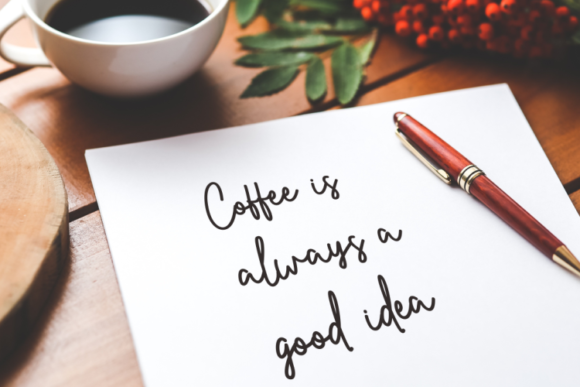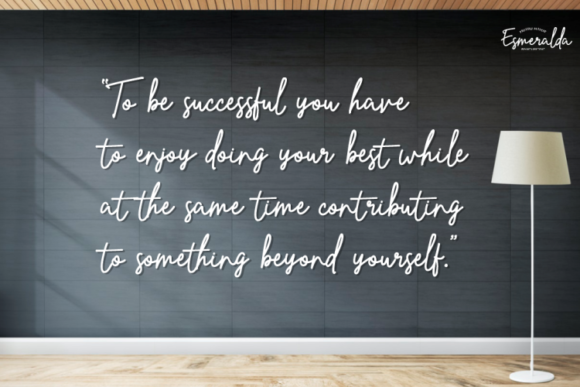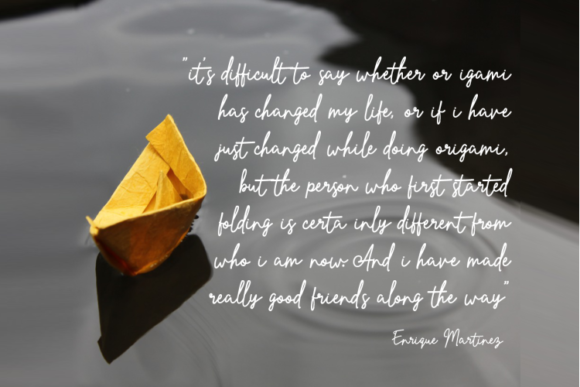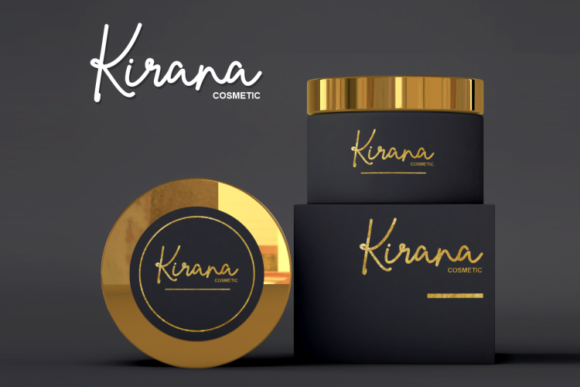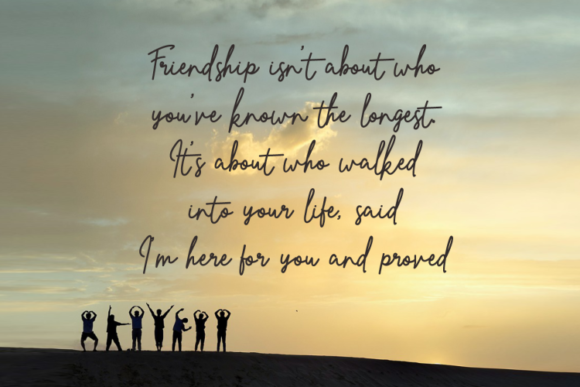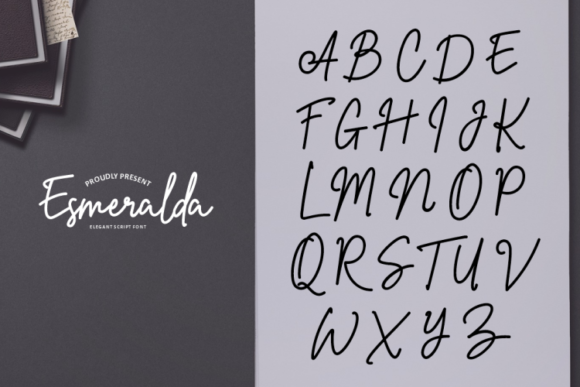
Introducing Esmeralda Font: Elevate Your Designs with Elegance and Sophistication
In the world of typography, few fonts manage to capture the essence of elegance and sophistication as beautifully as Esmeralda. This stunning script font is a masterpiece of modern design, boasting a unique blend of classic charm and contemporary flair. Whether you’re a designer, crafter, or simply someone who appreciates the art of beautiful writing, Esmeralda is sure to captivate your senses and inspire your creativity.
The Beauty of Esmeralda
Esmeralda is a stylish and incredibly elegant script font that exudes refinement and poise. Its intricate lettering and flowing lines evoke a sense of luxury and sophistication, making it the perfect choice for a wide range of design applications. From wedding invitations and thank you cards to quotes, greeting cards, logos, and business cards, Esmeralda adds a touch of handmade charm to any project.
One of the most popular uses for Esmeralda is in wedding and event design. Its romantic, cursive script is tailor-made for wedding invitations, save-the-date cards, and other stationery. The font’s elegant lines and delicate flourishes create a sense of whimsy and wonder, setting the tone for a truly unforgettable celebration. Whether you’re a bride, groom, or event planner, Esmeralda is the perfect choice for creating beautiful, bespoke stationery that reflects your personal style.
Adding a Personal Touch to Your Designs
Esmeralda’s handwritten charm makes it an excellent choice for designers and crafters looking to add a personal touch to their work. Whether you’re creating custom illustrations, hand-lettered quotes, or bespoke branding, Esmeralda’s unique character and flair are sure to shine through. The font’s versatility also makes it suitable for a wide range of design applications, from digital projects to print materials.
Key Features of Esmeralda Font
- Elegant script font: Esmeralda boasts a beautiful, cursive script that’s perfect for adding a touch of sophistication to your designs.
- Handwritten charm: The font’s intricate lettering and flowing lines evoke a sense of handmade charm and personality.
- Versatile: Esmeralda is suitable for a wide range of design applications, from wedding invitations and stationery to logos, business cards, and digital projects.
Tips for Using Esmeralda in Your Designs
To get the most out of Esmeralda, here are a few tips to keep in mind:
- Use it sparingly: Esmeralda’s elegance and sophistication can be overwhelming if overused. Use it sparingly to create a sense of balance and harmony in your designs.
- Experiment with colors: Esmeralda looks stunning in a range of colors, from classic black and white to bold, bright hues. Experiment with different colors to find the perfect fit for your design.
- Pair it with complementary fonts: Esmeralda pairs beautifully with a range of fonts, from classic serif fonts to modern sans-serif fonts. Experiment with different pairings to find the perfect combination for your design.
In conclusion, Esmeralda is a truly exceptional script font that’s perfect for designers, crafters, and anyone looking to add a touch of elegance and sophistication to their work. Its unique blend of classic charm and contemporary flair makes it suitable for a wide range of design applications, from wedding invitations and stationery to logos, business cards, and digital projects. With its handwritten charm, versatility, and ease of use, Esmeralda is sure to become a favorite in your design toolkit.